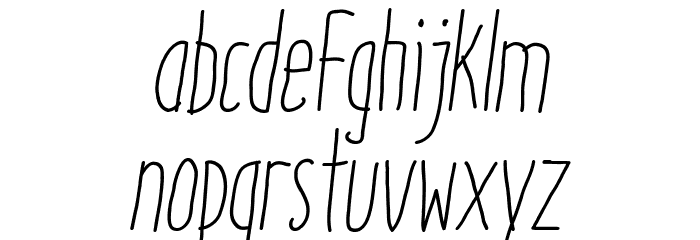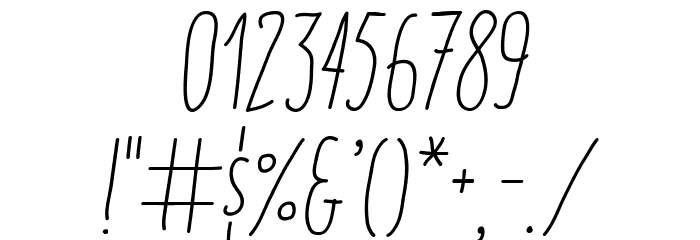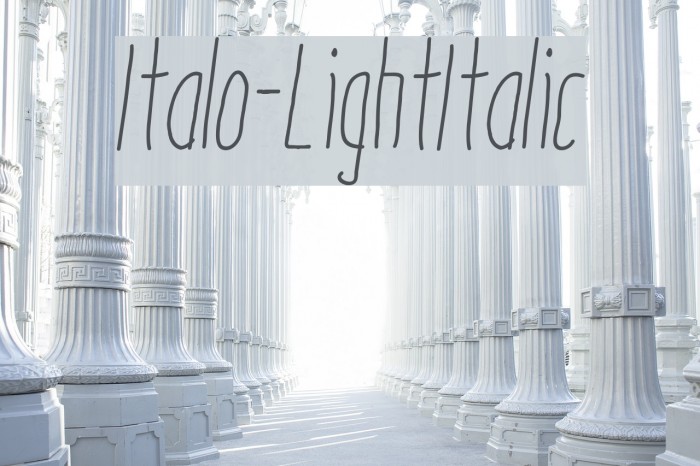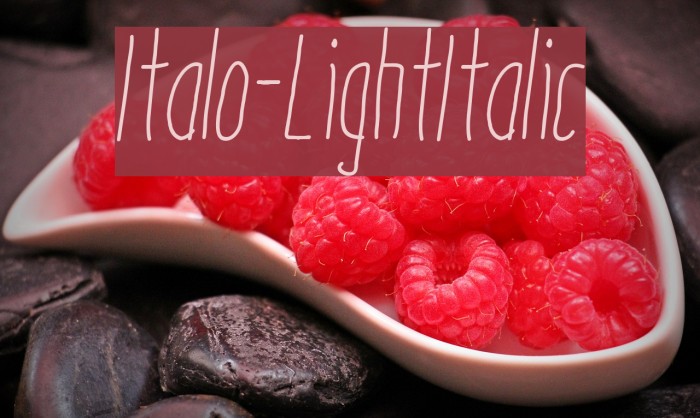
Italo-LightItalic Font
This font features a light, elegant style with a subtle italic slant, giving it a sense of movement and fluidity. The characters are tall and narrow, contributing to a sleek and modern appearance. The strokes are consistent in width, providing a uniform look across all characters. The lowercase letters have a slightly playful touch, with rounded edges that soften the overall appearance. The uppercase letters maintain a formal tone, making this font versatile for various applications. The numerals are clear and easy to read, while the special characters are well-integrated, maintaining the font's cohesive style.
A light, elegant, and slightly italic font with a modern and fluid style.
- Proposed Projects: Ideal for fashion magazines, elegant invitations, branding for luxury products, and modern web design.